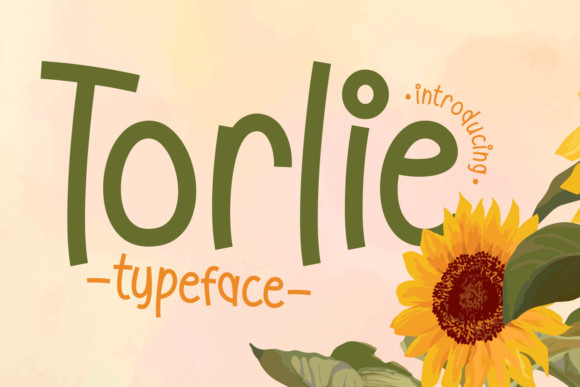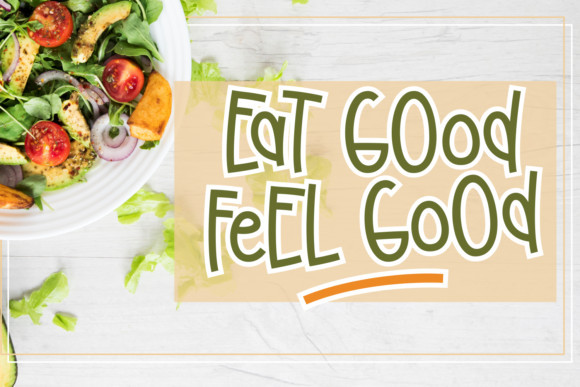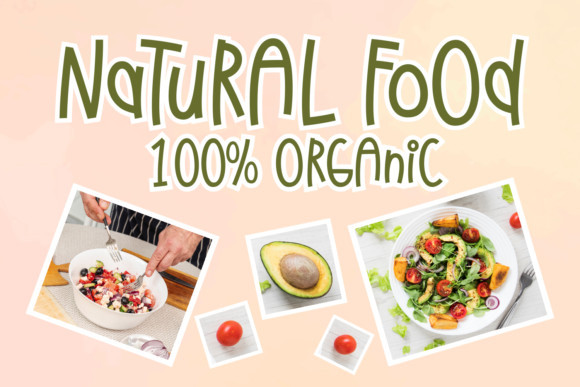
Torlie Font
Torlie FontTorlie is a cute and casual handwritten font with an incredibly friendly feel. It maintains its classy calligraphic influences while feeling contemporary and fresh. This versatility will appeal to a wide range of crafty ideas, from letterheads and titles, to stationery. Get inspired by its authentic feel and use it to create gorgeous wedding invitations, beautiful stationary art, eye-catching social media posts, and cute greeting cards.